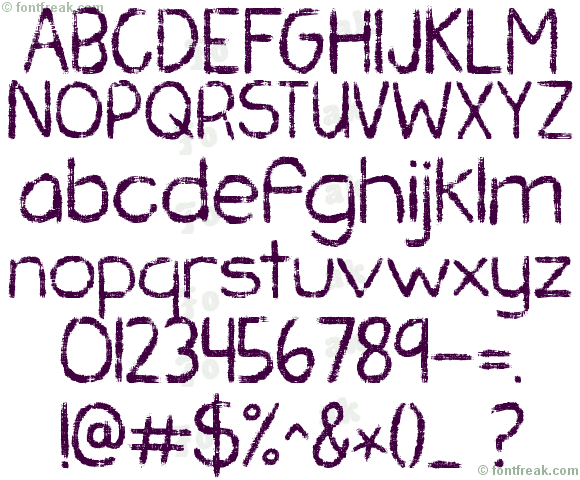
KG Chasing Pavements
About KG Chasing Pavements
KG Chasing Pavements is a delightful handwritten font designed by Kimberly Geswein, categorized as a script typeface. This font exudes a casual and friendly charm, making it perfect for a variety of creative projects. Its visual characteristics include a playful stroke weight that varies slightly, creating a sense of warmth and approachability. The letters feature a gentle contrast and a relaxed spacing that enhances readability while maintaining a unique, personal touch. The slightly uneven edges add an organic feel, reminiscent of a handwritten note, making it an ideal choice for informal communications.
This font is particularly well-suited for wedding invitations, where its romantic flair can add a personal touch to the big day. It also shines in the context of greeting cards, allowing messages to resonate with warmth and sincerity. Additionally, KG Chasing Pavements is perfect for crafting restaurant menus, lending a friendly vibe that invites customers to explore the offerings. Content creators will find it useful for social media graphics, where its playful aesthetic can capture attention and engage audiences effectively. Graphic designers, small business owners, and anyone looking to add a personal touch to their projects will appreciate its versatility.
What sets the KG Chasing Pavements font apart is its ability to blend professionalism with a casual, handcrafted feel. It stands out as a freeware option, allowing users to incorporate its unique style into their creative endeavors without any financial constraints. With the KG Chasing Pavements font free download, you can effortlessly elevate your designs, making them more relatable and inviting. Whether for personal projects or business use, this font is a charming choice that truly resonates with audiences.